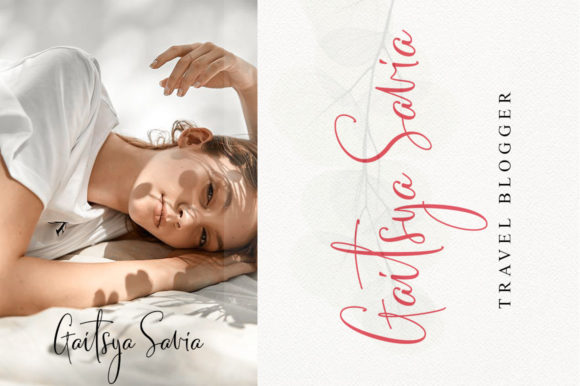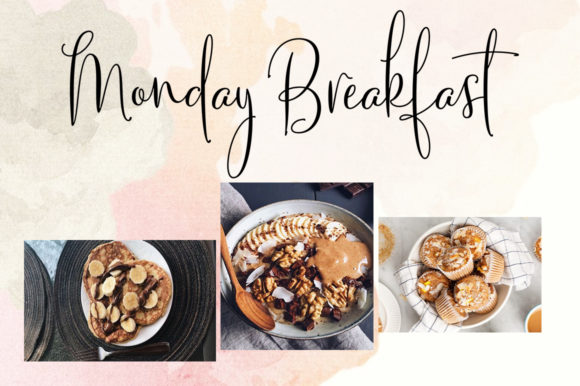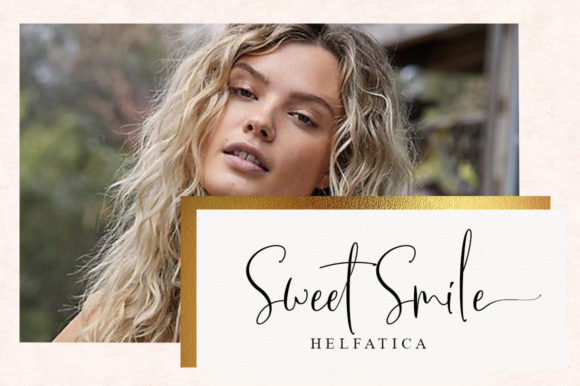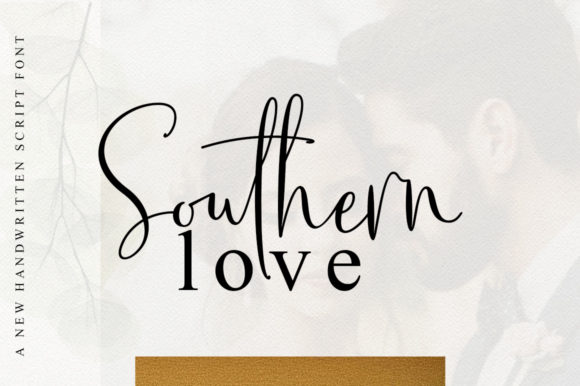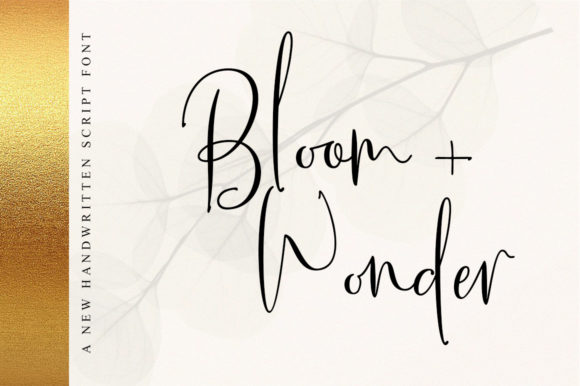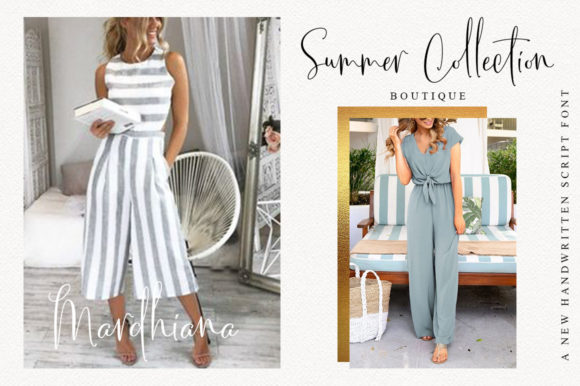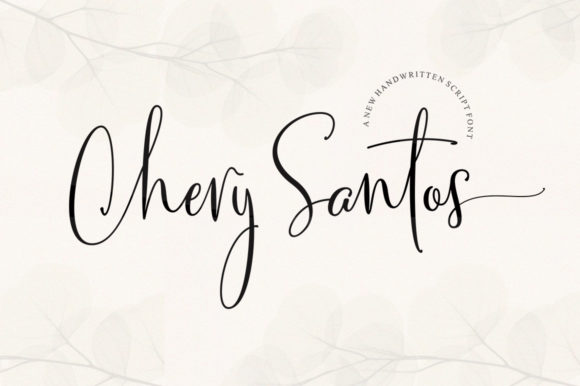
Introducing Chery Santos Font: Elevate Your Designs with Elegance and Charm
In the world of typography, few fonts manage to strike a balance between charm and elegance as effortlessly as Chery Santos Font. This beautiful, handwritten font is a versatile gem that can elevate a wide range of design projects, from wedding invitations and thank you cards to quotes, greeting cards, logos, and business cards. If you’re a designer or crafter looking for a typeface that adds a touch of sophistication and personality to your work, Chery Santos Font is definitely worth exploring.
Aesthetic Appeal and Versatility
Chery Santos Font exudes a sense of charm and elegance that is hard to find in digital typography. Its aesthetic appeal lies in its varying baseline, which gives it a dynamic and organic feel, reminiscent of handwriting. The smooth lines and gorgeous glyphs add to its beauty, making it a joy to use in various design applications. Whether you’re creating something as personal as wedding stationery or as professional as a business logo, this font fits seamlessly into any project that requires a handwritten touch.
One of the standout features of Chery Santos Font is its versatility. It doesn’t matter if you’re designing for digital platforms or print; this font scales beautifully across different sizes and resolutions. For crafters and designers, this means you can use Chery Santos Font for a wide array of projects, including:
- Thank you cards and personalized notes
- Quotes and inspirational posters
- Greeting cards for any occasion
Why Choose Chery Santos Font?
So, why should designers and crafters choose Chery Santos Font over other typefaces? Here are a few compelling reasons:
- Elegant and Charming: It adds a touch of elegance and charm to any design.
- Versatile: Suitable for a wide range of projects, from personal to professional.
- Aesthetically Pleasing: Features smooth lines, gorgeous glyphs, and stunning alternates.
Chery Santos Font is a beautiful, elegant, and charming typeface that can bring a new level of sophistication and personality to your designs. Whether you’re a professional designer or a crafter working on personal projects, this font offers versatility, aesthetic appeal, and ease of use that’s hard to match. With its PUA encoding, you have access to a wide range of glyphs and swashes, allowing you to create truly unique and eye-catching designs. So, if you’re looking for a handwritten font that can elevate your work, consider giving Chery Santos Font a try.
Incorporating Chery Santos Font into your design toolkit can open up new creative possibilities and help you produce stunning work that stands out. Its combination of elegance, charm, and usability makes it an excellent choice for anyone looking to add a personal touch to their designs.